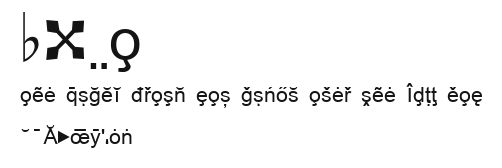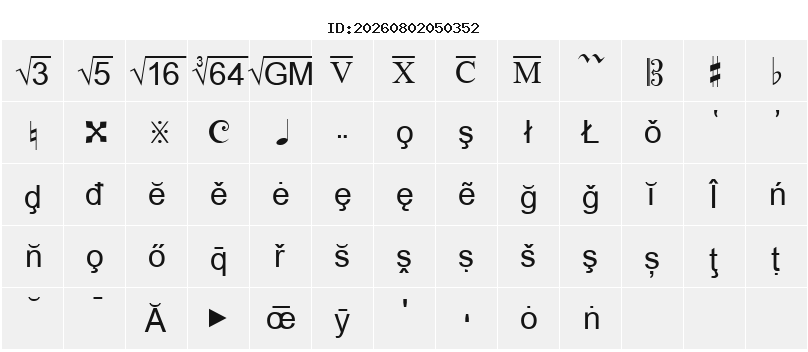
MOST.ttf is a modern, elegant sans-serif font designed for ultimate readability and visual harmony. Perfect for branding, headlines, web design, and print materials.